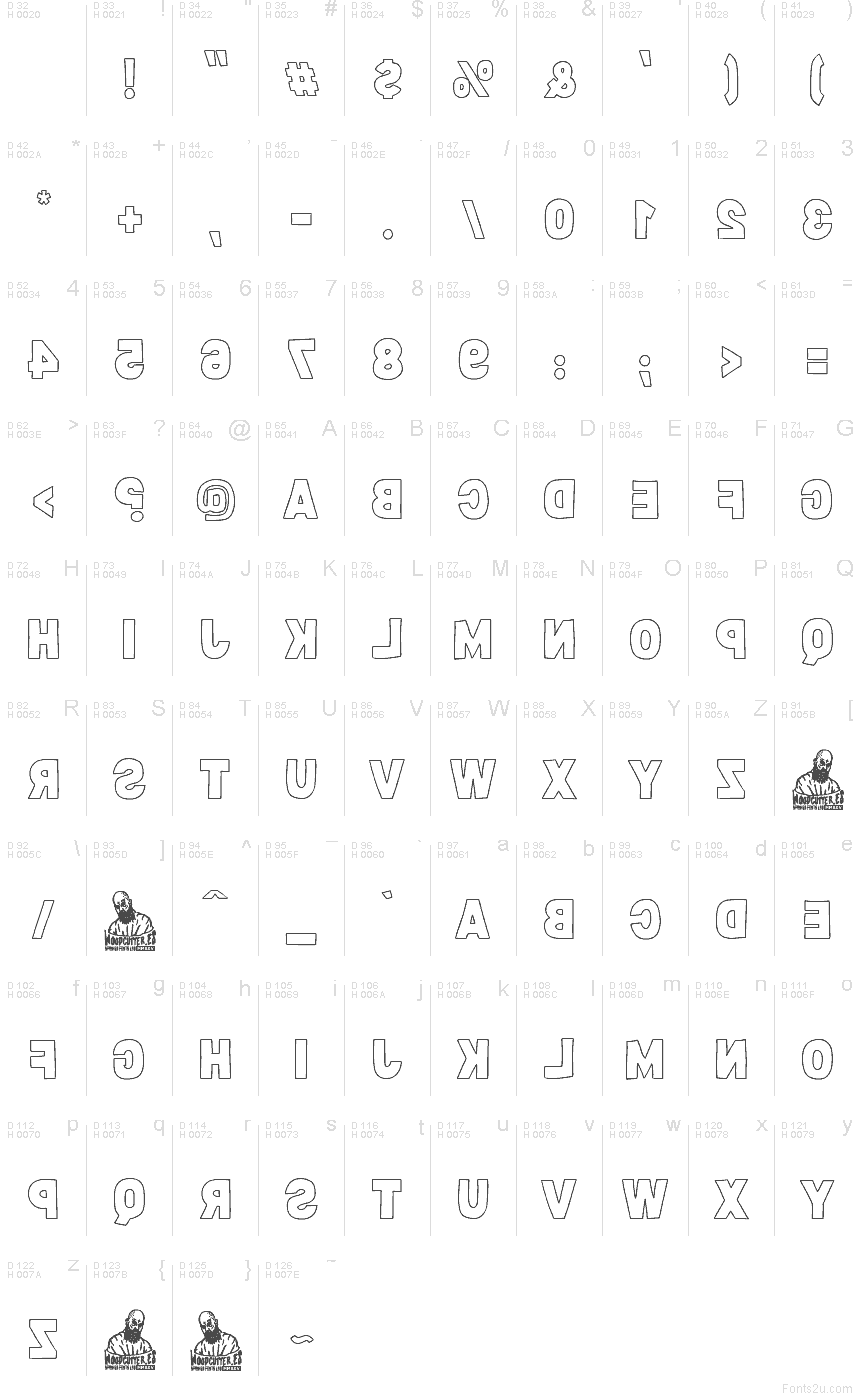
Hot And Loco Day Outline
Hot And Loco Day Outline font by Woodcutter is a free distorted outline display typeface with a wobbly, hand-drawn edge that looks like it’s been traced in shaky marker. The chunky, rounded letters feel playful but slightly off-kilter, with hollow interiors that invite color fills, textures, or layered effects. Its uneven rhythm and thin, scratchy outlines give designs a restless, scribbled energy that’s hard to ignore.
Using Hot And Loco Day Outline, you can bring a noisy, DIY attitude to gig posters, zines, party flyers, streetwear graphics, YouTube thumbnails, and bold social posts. This free font shines when set large, where the quivering outlines and airy centers have room to breathe; pair it with a simple geometric sans in small text to keep everything readable while the headlines go wild.